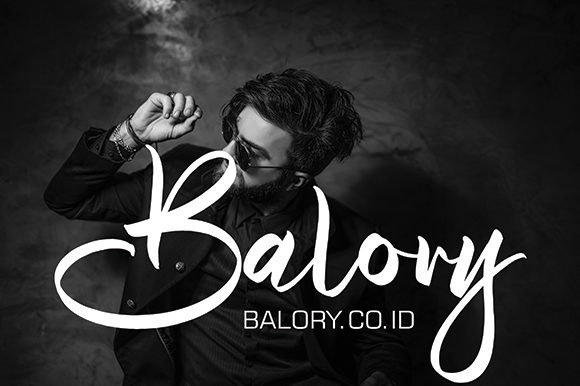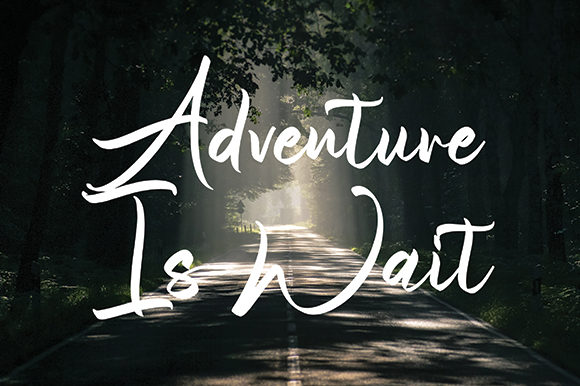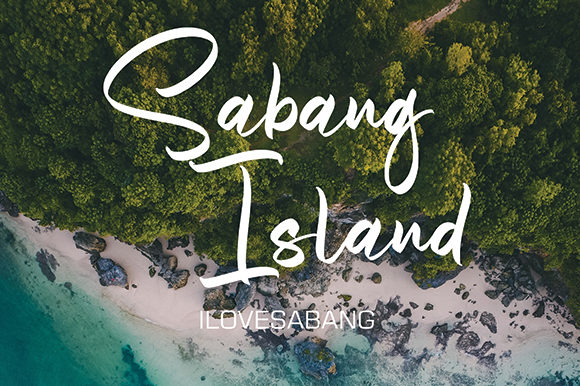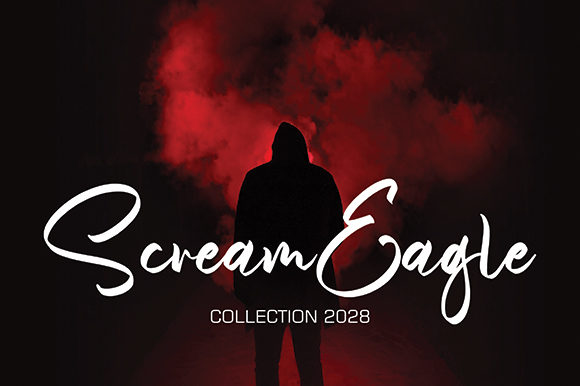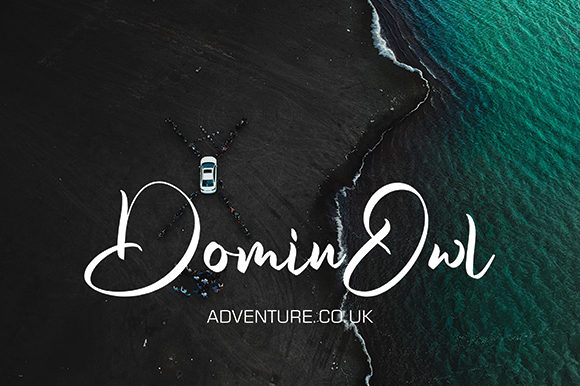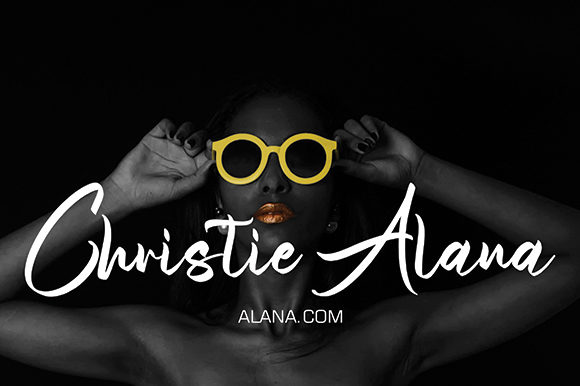
Unlocking the Magic of Sixfaith Font
As a designer, you’ve probably experienced that ‘aha’ moment when a perfect font elevates your creative project from good to great. For me, it was the moment I stumbled upon the Sixfaith Font – a dazzling script font that has been a game-changer ever since. Its neatly crafted and highly detailed design makes it a versatile asset that can enhance any creation.
Imagine having a design resource that can effortlessly add a touch of elegance and sophistication to your work. The Sixfaith Font is that and more, offering a transparent background that allows your content to shine through. Whether you’re working on a branding project or a blog post, this font is sure to be a valuable addition to your library. And the best part? It’s available for free download, making it an accessible high-quality design resource for designers of all levels.
Key Features of Sixfaith Font
- High-quality, unique font design ideal for creative projects and designs requiring a touch of elegance.
- Designed to be highly legible, making it perfect for body text, headings, and titles in creative projects.
- Unique characteristics include intricate details and subtle flair, setting it apart from other fonts in its category.
Honest Review: Sixfaith Font
I recently stumbled upon the Sixfaith Font while searching for a unique design resource to enhance my creative project. I’m thrilled to share my honest review of this font.
What works well: ✨ The Sixfaith Font has a distinctive, modern design that adds a touch of elegance to any text-based element. The font is highly legible, making it perfect for both web and print applications. Its transparent background feature allows for seamless integration with any background image or color, giving you complete design freedom.
What could be improved: ⚠️ While the font is free to download, it’s not compatible with all design software. I encountered some issues with Adobe Illustrator, which was a bit frustrating. Additionally, the font’s weight is somewhat limited, which might not be suitable for all design projects.
Overall impression: I’m impressed with the Sixfaith Font’s high quality and versatility. It’s an excellent design resource for any creative project, especially those that require a modern and sleek aesthetic. If you’re looking for a free font with a transparent background, the Sixfaith Font is definitely worth checking out.
- Unique and modern design
- Highly legible
- Transparent background feature
- Not compatible with all design software
- Limited weight options
How to Use Sixfaith Font
The Sixfaith Font is a versatile and high-quality design resource ideal for creative projects that require a unique touch. With a transparent background, this font can be easily integrated into various design platforms.
Tips for Getting the Most Out of the Sixfaith Font
For the best results, use the Sixfaith Font in conjunction with other high-quality design resources. Experiment with different font sizes, colors, and layouts to create unique and eye-catching designs. You can also use the font in combination with transparent backgrounds to create a seamless and professional look.
The Sixfaith Font is ideal for a variety of creative projects, including logos, business cards, brochures, and social media graphics. Its unique style and transparent background make it perfect for designs that require a touch of elegance and sophistication.